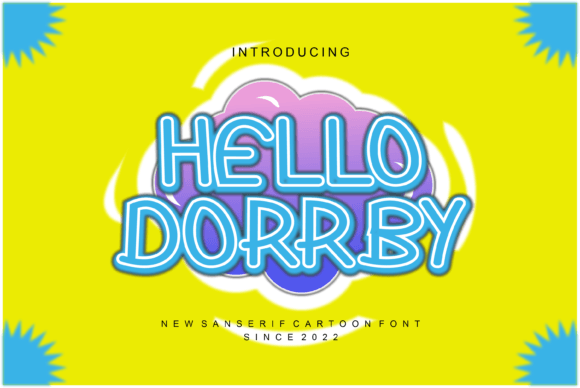
Step into the world of Hellodorrby, a playful and amiable sans serif typeface curated by the talented riotj. Specially crafted to resonate with the rhythmic beats of the music industry, Hellodorrby exudes an infectious energy that promises to elevate your musical endeavors to new heights.
Immerse yourself in a symphony of creativity as Hellodorrby effortlessly blends retro charm with contemporary aesthetics. Its graceful curves and energetic strokes dance across the screen, captivating the eyes and igniting the imagination. Whether you're designing album covers, posters, or social media graphics, Hellodorrby will effortlessly transform your visions into tangible masterpieces.
This versatile font family seamlessly adapts to a multitude of musical genres, from the soulful melodies of jazz to the explosive energy of rock and roll. Its captivating presence ensures that your designs will leave a lasting impression, resonating with music enthusiasts and casual listeners alike.
Hellodorrby's playful personality shines through in every character, adding a touch of whimsy and delight to your creative projects. Let your imagination run wild as you explore the endless possibilities that Hellodorrby has to offer. From eye-catching headlines to captivating body text, this font will effortlessly elevate your designs to new heights.
With Hellodorrby by your side, you'll unlock a world of creative possibilities, transforming your musical projects into captivating experiences. Its user-friendly nature makes it accessible to designers of all skill levels, empowering you to unleash your creativity without limits.